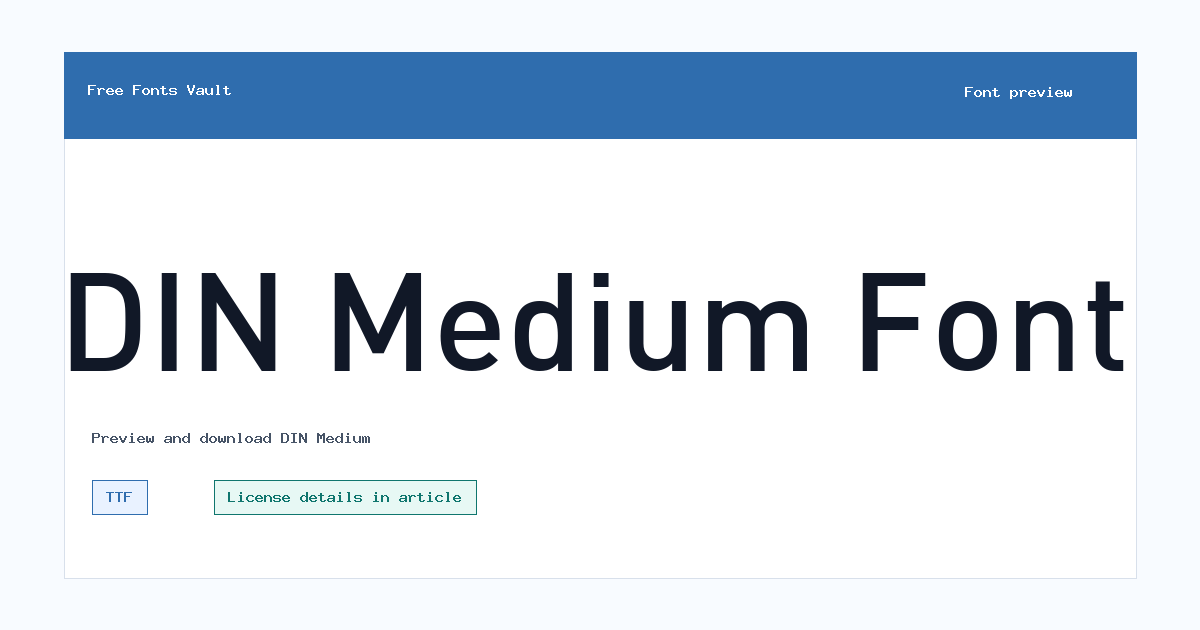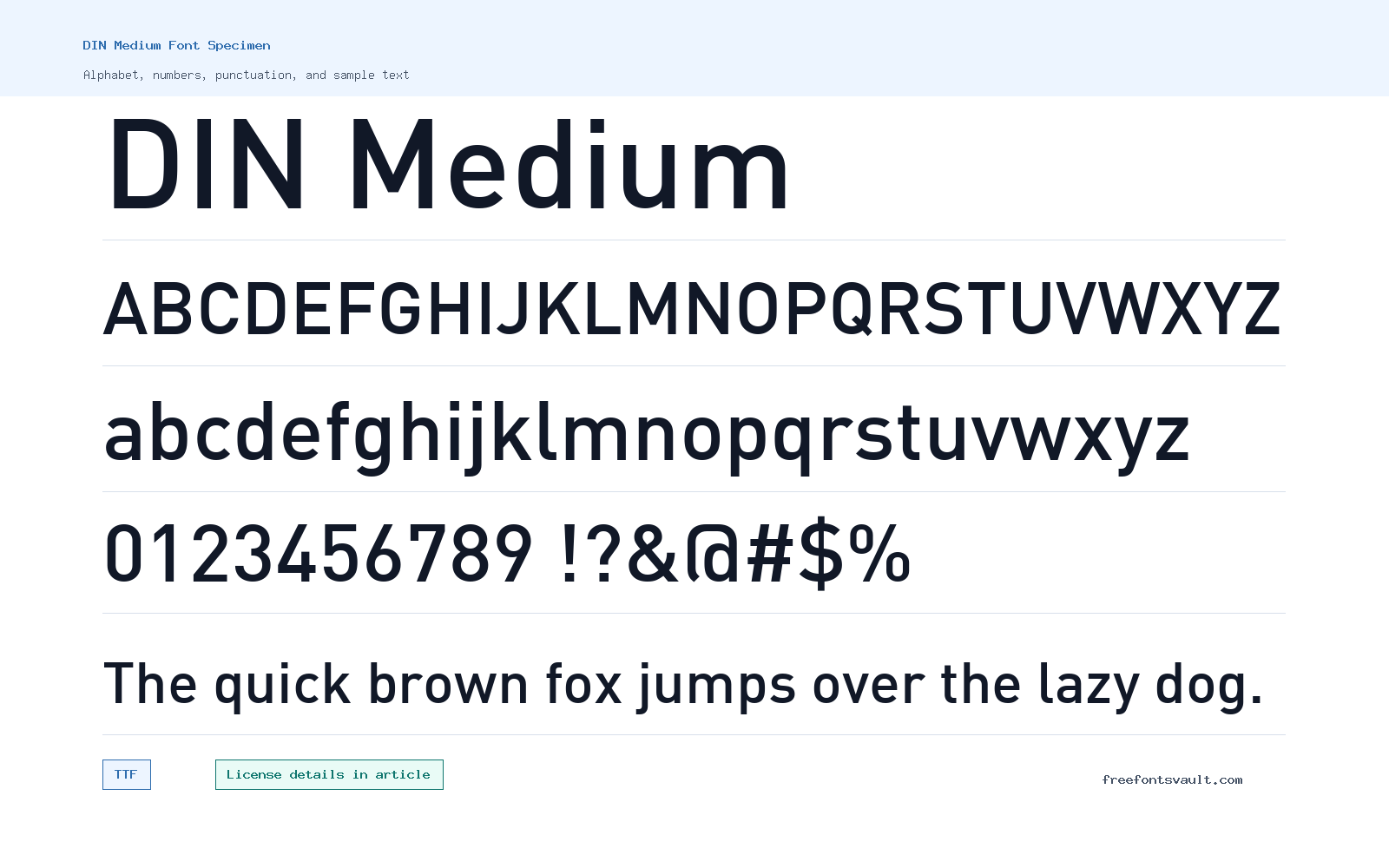
DIN Medium
DIN Medium font preview showing the family name
DIN Medium Font
DIN Medium font specimen showing alphabet, numbers, and sample text
DIN Medium font.
DIN Medium is a regular TrueType font with a medium 500 weight, suited to visitors who want a clear, balanced style to test in headings, labels, and short text.
About DIN Medium
DIN Medium comes as a TTF file in a normal style with a 500 weight. That places it between lighter text weights and heavier display weights, so it can feel steady without becoming too bold. Use the preview box to check how your own words look at different sizes, especially if you plan to use it for titles, navigation, poster lines, or compact UI labels.
Because only one regular variant is listed, plan your design around a single weight unless you already have matching styles from another source. Test uppercase, lowercase, numbers, punctuation, and any accented characters you need. If the design is being used for longer paragraphs, preview a few full sentences first; medium weights can work well for emphasis, but some layouts read better when body text is set in a lighter companion font.
Since this entry does not list designer or foundry details, the safest public guidance is practical rather than historical. Test DIN Medium as a clean medium-weight option and judge it by spacing, clarity, and how it behaves in your actual layout. If you need a full DIN family or official licensing, compare the file and license against the source you plan to use.
• Normal style with a medium 500 weight for stronger text without a heavy bold look
• Good candidate for previewing short labels, headings, menus, and title treatments
• Medium weight can help labels and headings stand out without using a full bold style
• Website headings and navigation labels
• Poster titles and short announcement text
• Brand mockups that need a firm medium-weight wordmark test
• App or interface labels where a regular weight feels too light
• Clean layout experiments paired with a lighter body font
• Clean one-weight layout tests where spacing and legibility matter more than decoration
What format is DIN Medium?
What weight is DIN Medium?
The listed font weight is 500, which is commonly treated as a medium weight between regular and bold.
Is DIN Medium good for body text?
It may work for short passages, but test it first. A medium 500 weight can feel strong in long paragraphs, so many layouts may read better with DIN Medium used for headings and a lighter companion font used for body copy.
Does DIN Medium include multiple styles?
Only one regular, normal-style variant is listed for this font entry.